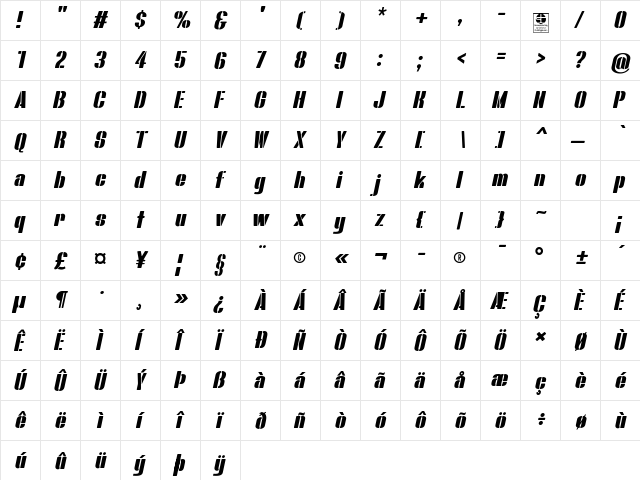
Bluefish STENCIL DEMO Italic
Design Context for Bluefish STENCIL DEMO Typeface
Bluefish STENCIL DEMO has the rough pragmatism of spray-painted stencil signage, adding a raw, street-level authenticity to designs. The slanted form adds forward momentum and visual energy.
A strong choice for packaging that needs edge, warehouse aesthetics, and rough-and-ready visual identities.
Pro Tip: Use Bluefish STENCIL DEMO at large sizes on packaging, posters, or apparel where the stencil cutaways read clearly. Avoid small sizes where those gaps become visual noise.